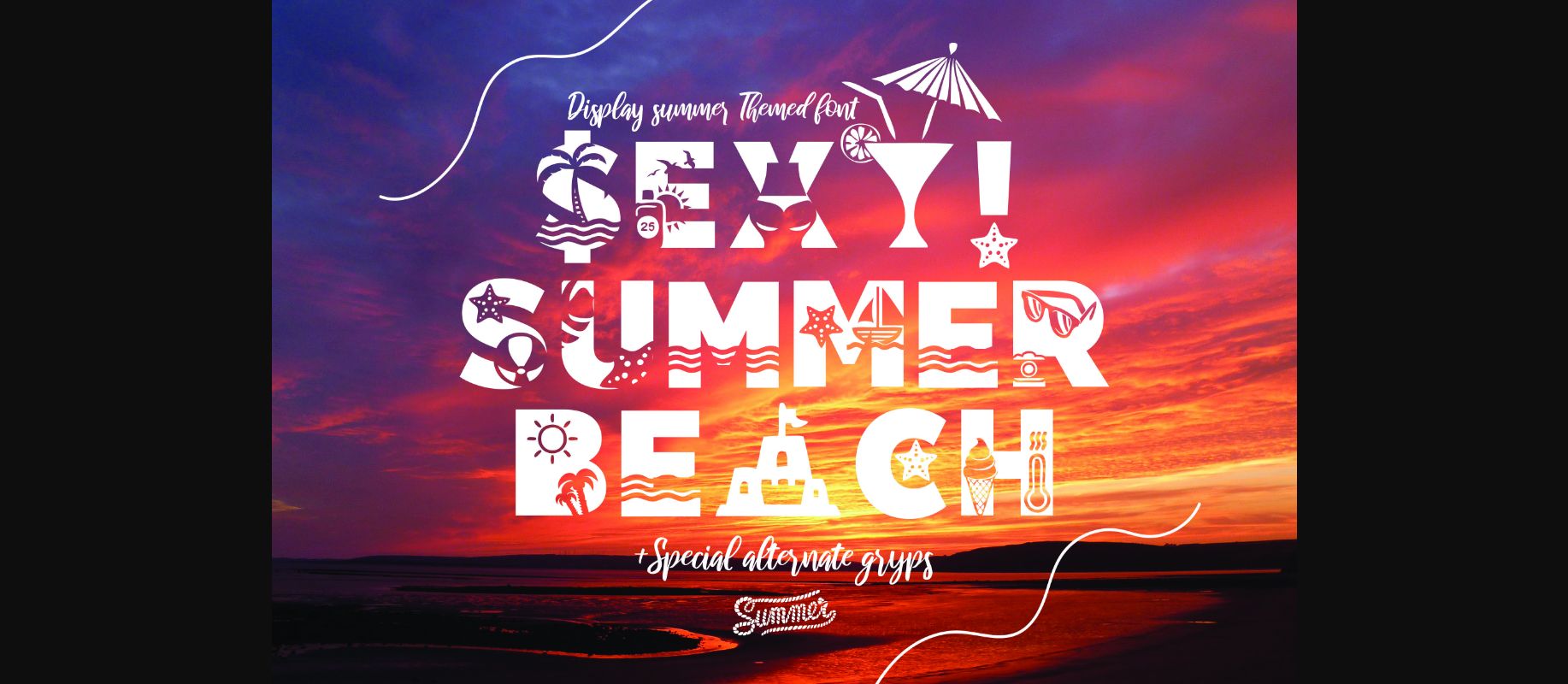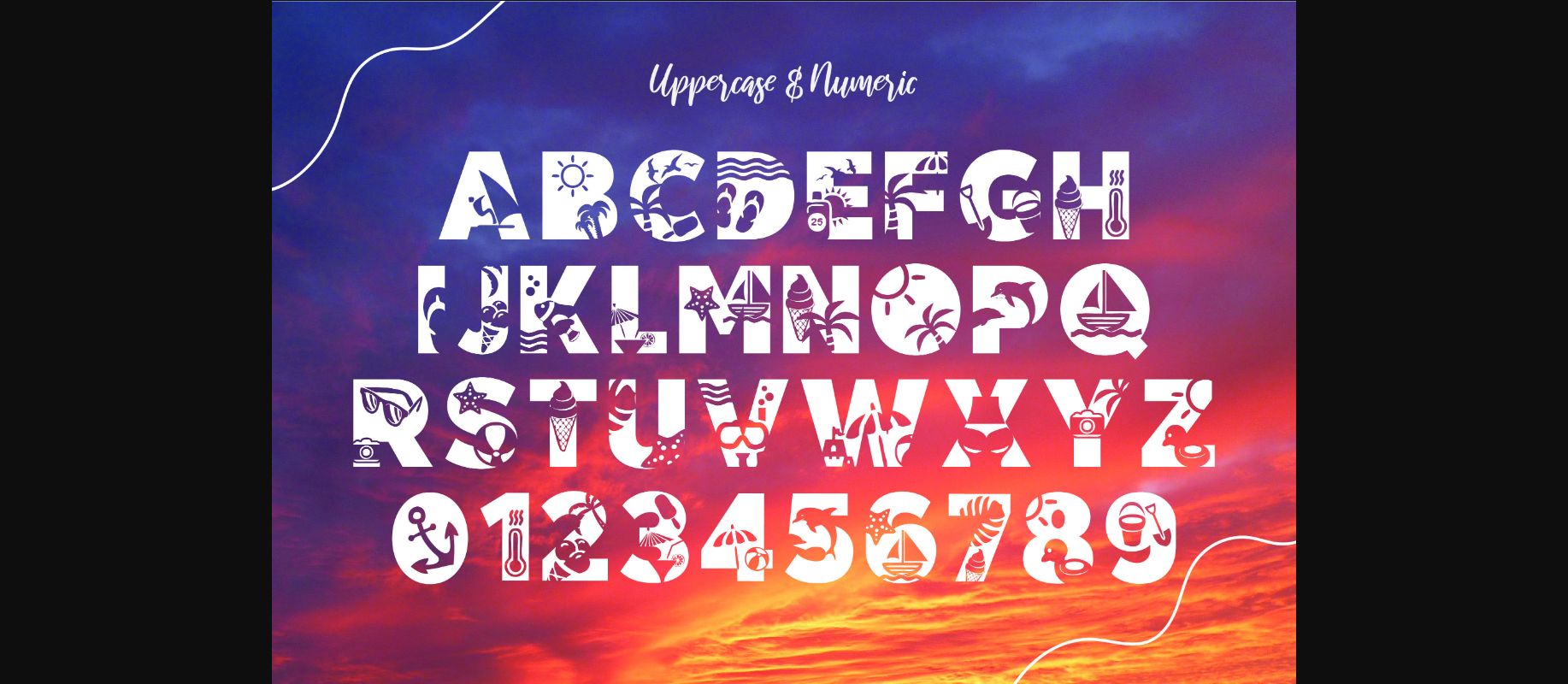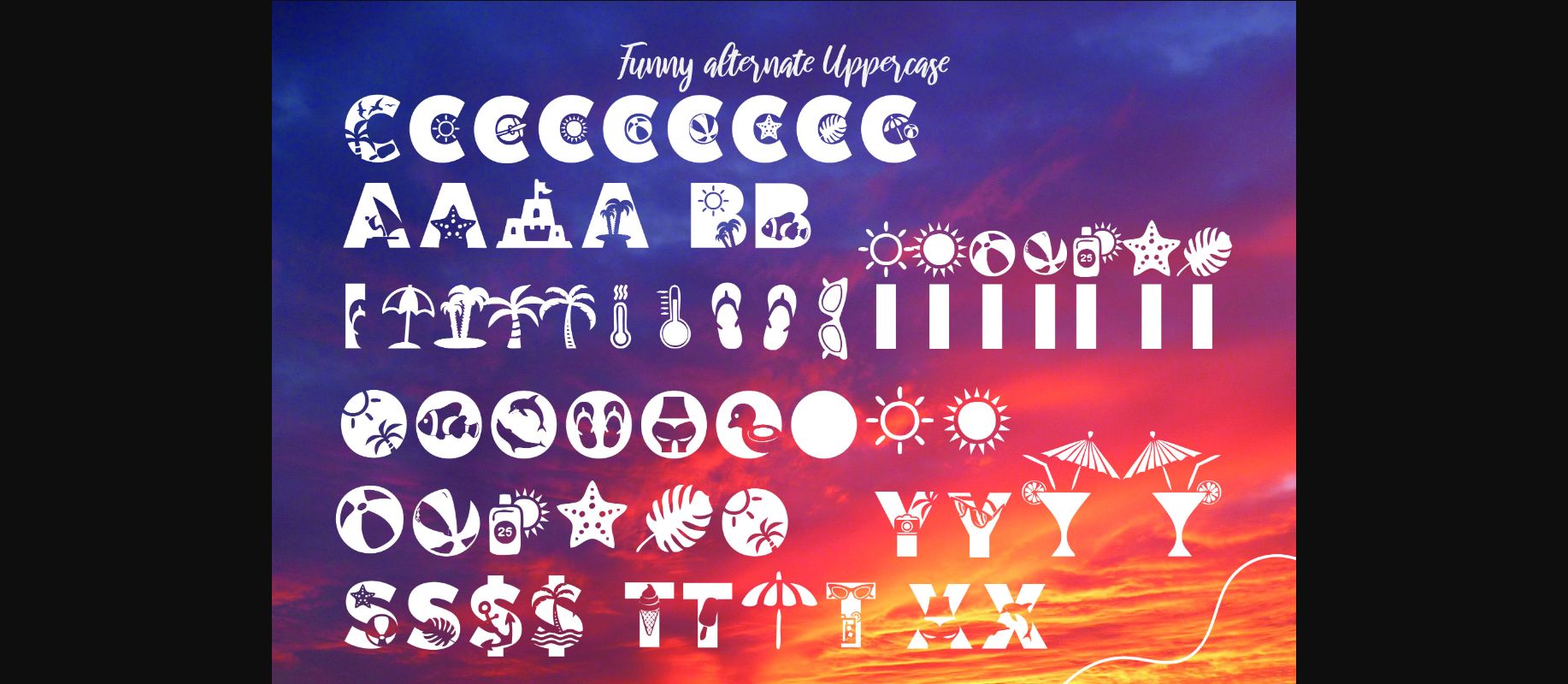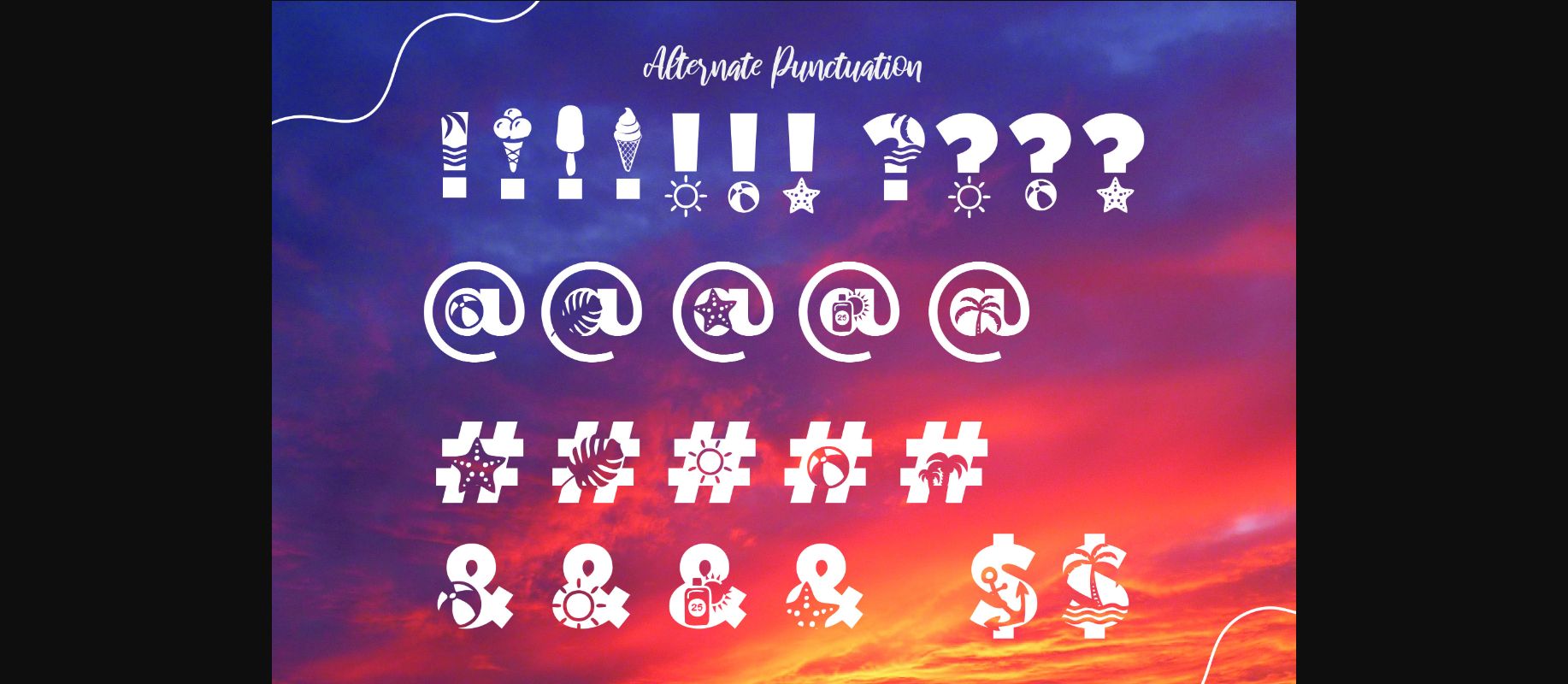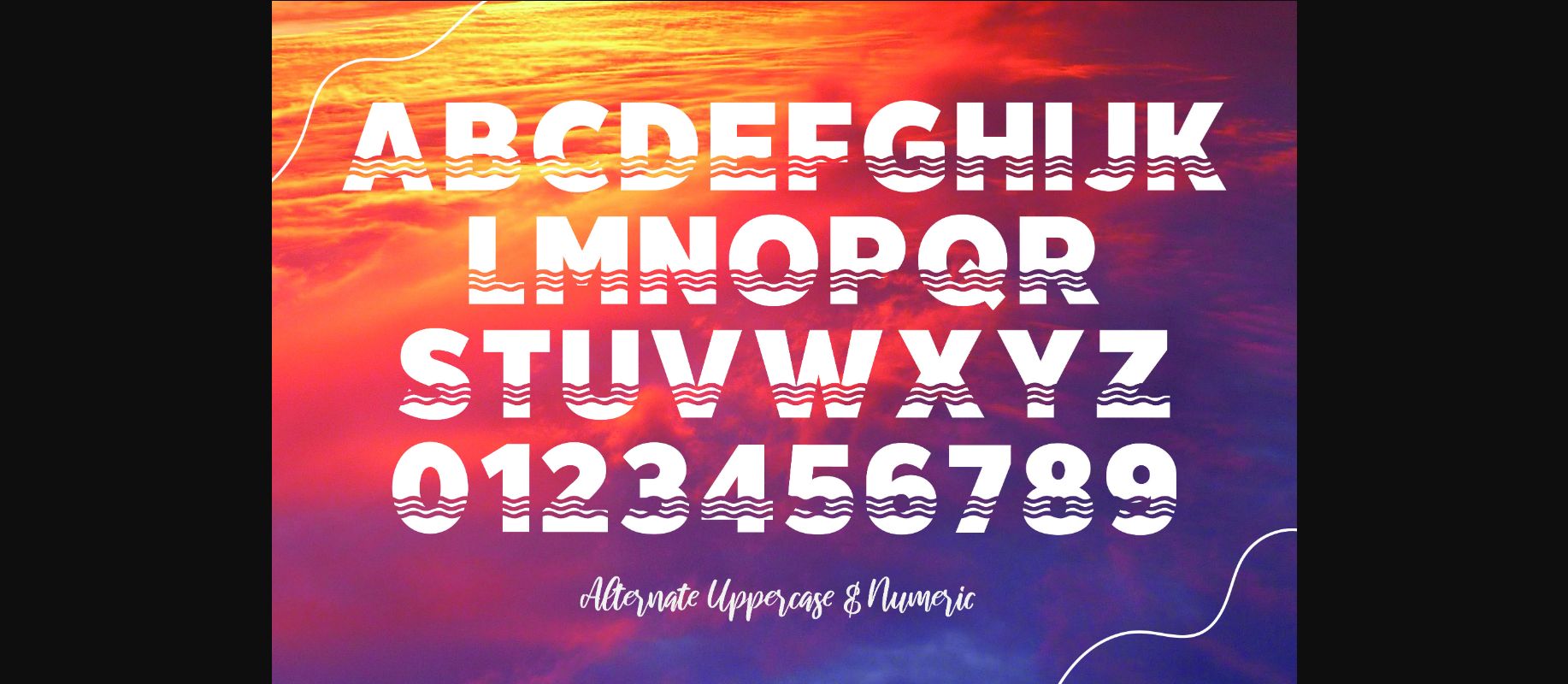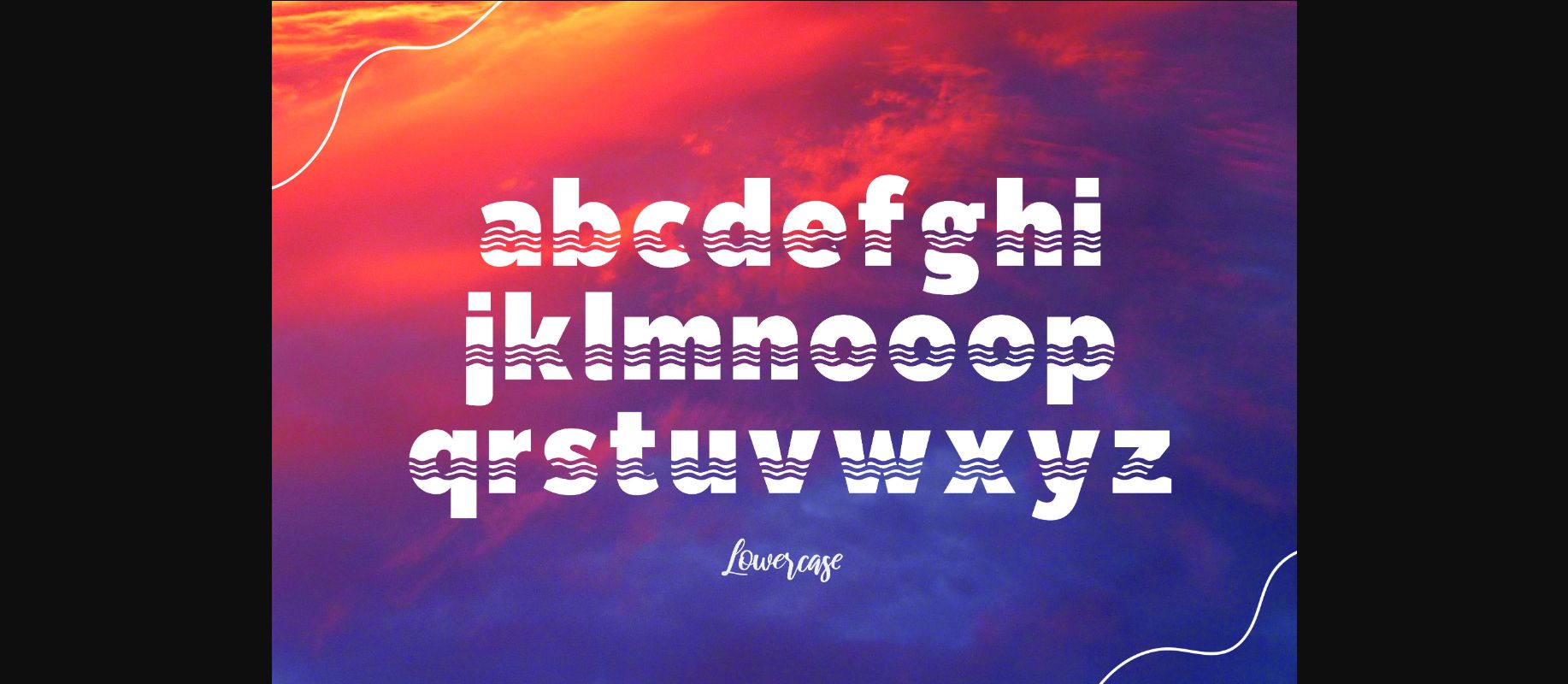
About Sexy Summer Beach Font
Sexy Summer Beach is a cool, bold, and summery decorative font, featuring summery elements on each character. No matter the topic, this font will be an incredible asset to your fonts’ library, as it has the potential to elevate any creation.